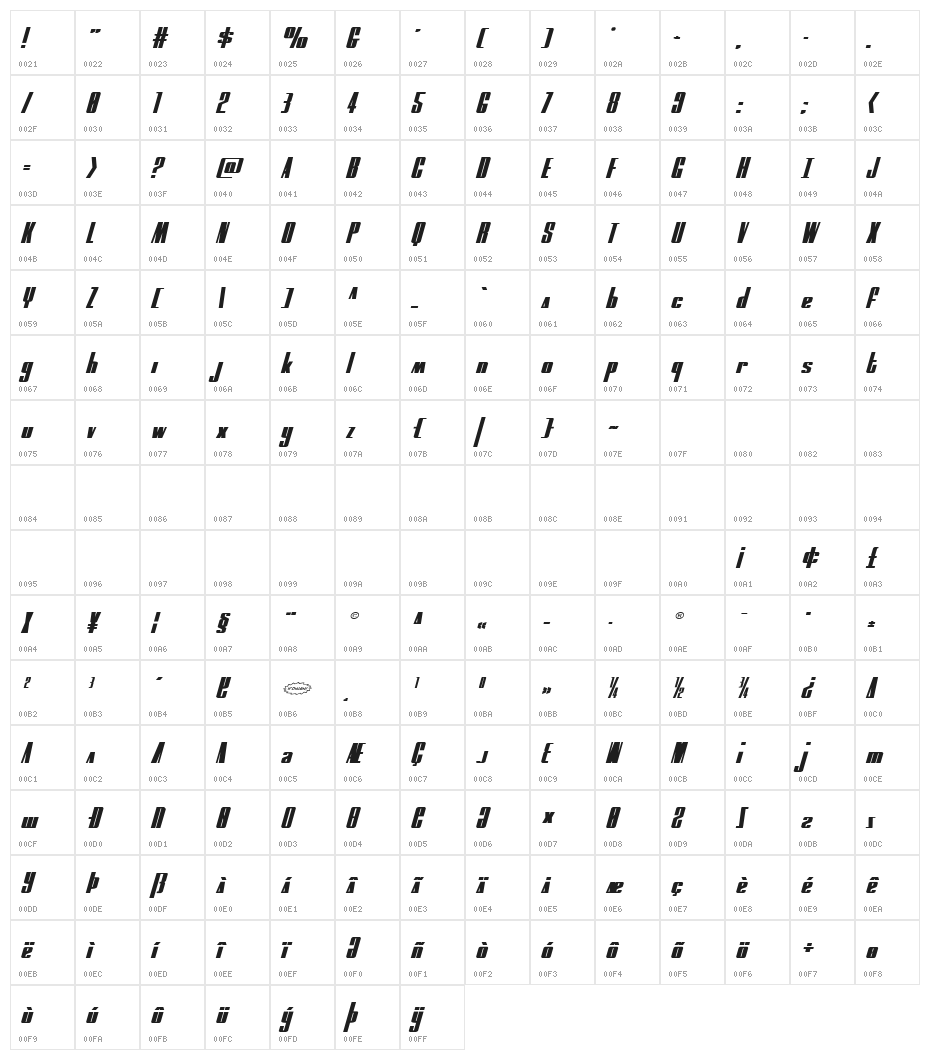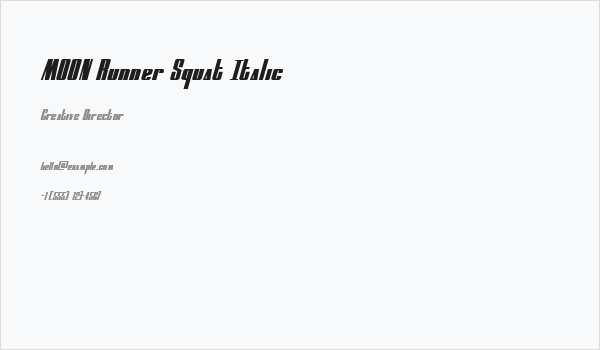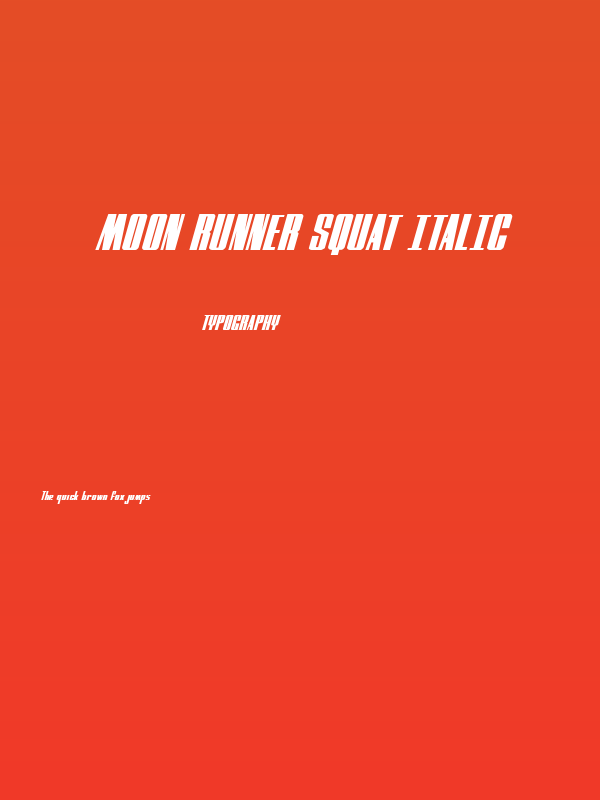
MOON Runner Squat Italic Font
MOON Runner Squat Italic Description
This font features a bold and dynamic style with a strong italic slant, giving it a sense of motion and energy. The characters are condensed, enhancing the compact and impactful appearance. The uppercase and lowercase letters are designed with sharp angles and clean lines, contributing to a modern and futuristic aesthetic. The numerals and special characters maintain this cohesive style, ensuring versatility across various uses. The font's high contrast in stroke thickness adds to its striking presence, making it ideal for attention-grabbing designs.
Proposed ProjectsIdeal for sports branding, dynamic posters, futuristic designs, and impactful headlines.